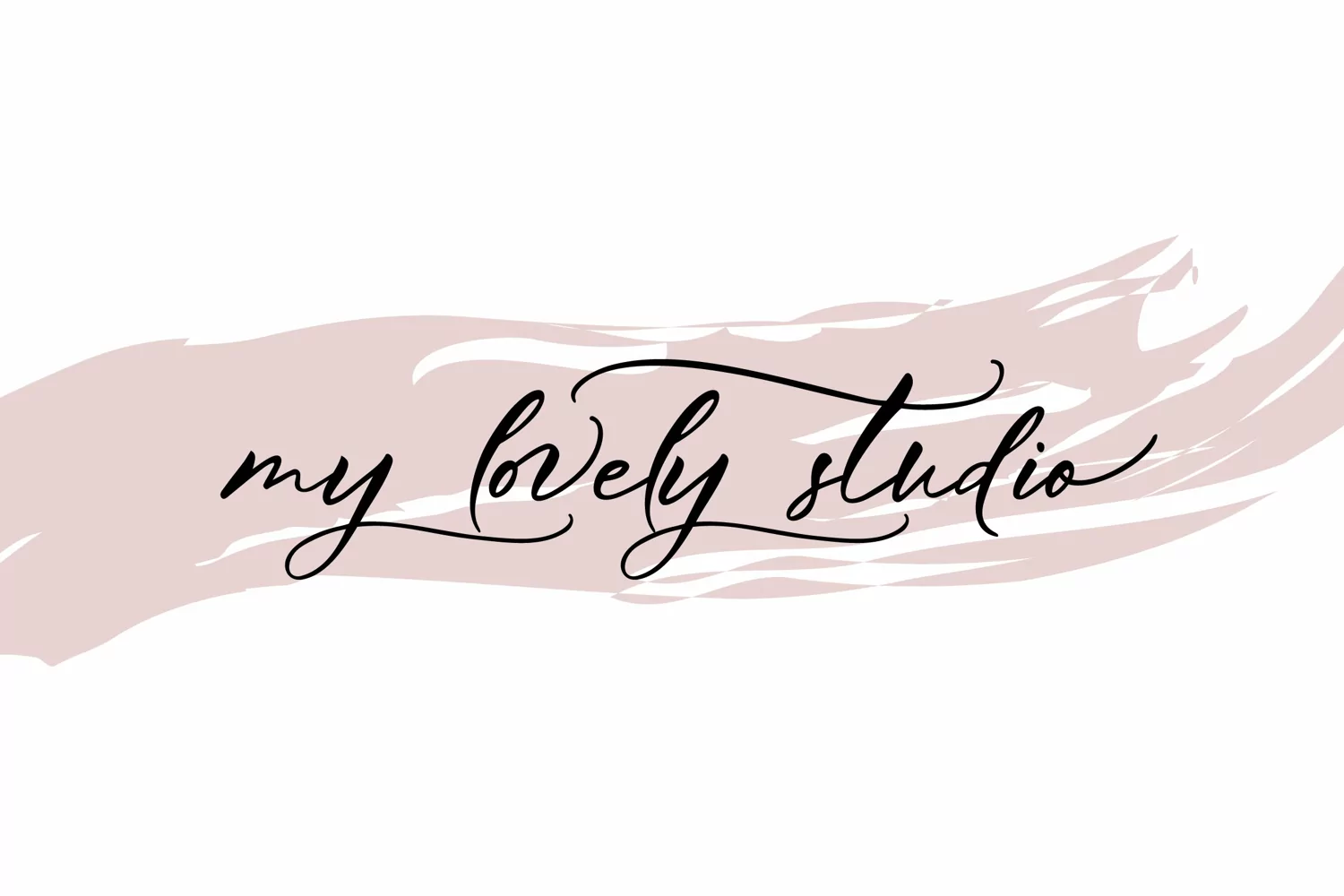
The Glamorous Tale, an elegant script font that is ideal for all things romantic and perfect for designing wedding invitations, quotes, cards and branding as well as packaging projects. The font comes with a set of alternate lowercase letters that include the ending swash to make the lettering look even more glamorous and authentic.
What's included:- The font includes a full set of uppercase and lowercase letters.
- Numbers and Punctuations
- Alternate lowercase letters
- International language support